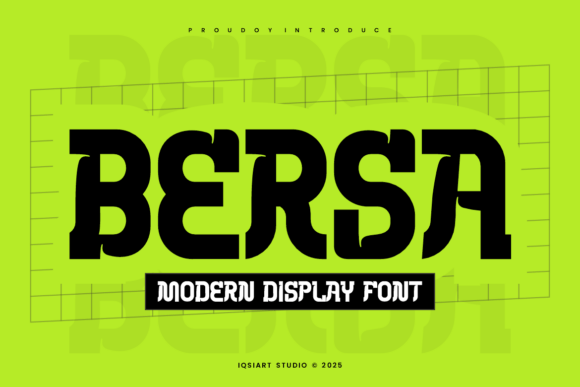
Bersa Font: A Unique and Quirky Display Font for Your Design Needs
The world of typography is vast and diverse, with countless fonts to choose from, each with its own unique character and personality. One such font that has gained popularity in recent times is the Bersa font. In this article, we’ll take a closer look at what makes Bersa a standout display font, its features, and how it can be used in various design contexts.
What is Bersa Font?
Bersa is a display font that can be described as unique, quirky, and interesting. Its distinctive design makes it stand out from more traditional fonts, and its versatility allows it to be used in a wide range of applications. Whether you’re looking to add some personality to your website, create eye-catching headlines, or simply want to experiment with a new font, Bersa is definitely worth considering.
Key Features of Bersa Font
- Unique and quirky design: Bersa’s design is unlike any other font out there. Its quirky and interesting features make it perfect for adding some personality to your designs.
- Display font: Bersa is specifically designed as a display font, making it ideal for headlines, titles, and other large-format text.
- Versatile: Despite its unique design, Bersa is incredibly versatile and can be used in a wide range of contexts, from digital designs to print materials.
What Makes Bersa Font So Special?
So, what sets Bersa apart from other fonts? For starters, its quirky design makes it instantly recognizable. The font features a range of unique characteristics, including irregular shapes and sizes, which give it a playful and informal feel. This makes Bersa perfect for designs that require a bit of personality and whimsy.
Another factor that contributes to Bersa’s uniqueness is its versatility. Despite its quirky design, the font is incredibly adaptable and can be used in a wide range of contexts. Whether you’re designing a website, creating a logo, or working on a print project, Bersa is a great choice.
Using Bersa Font in Different Design Contexts
- Web Design: Bersa is a great choice for web designers looking to add some personality to their website. Use it for headlines, titles, and other large-format text to create a lasting impression on your visitors.
- Print Design: Bersa is also suitable for print materials, such as brochures, posters, and business cards. Its unique design makes it perfect for adding some visual interest to your print materials.
- Logo Design: If you’re looking to create a logo that stands out from the crowd, Bersa is a great choice. Its quirky design makes it perfect for creating a unique and memorable logo.
Tips for Using Bersa Font Effectively
While Bersa is a versatile font, there are some tips to keep in mind when using it in your designs:
- Use it sparingly: Bersa is a display font, so it’s best to use it sparingly. Use it for headlines and titles, but stick to a more traditional font for body text.
- Experiment with colors: Bersa looks great in a range of colors, so don’t be afraid to experiment. Try using different colors to add some visual interest to your designs.
- Pair it with other fonts: Bersa can be paired with other fonts to create a unique and interesting design. Try pairing it with a more traditional font to create a striking contrast.
In conclusion, Bersa font is a unique and interesting display font that’s perfect for designers looking to add some personality to their designs. Its quirky design and versatility make it suitable for a wide range of contexts, from web design to print materials. With its ability to add visual interest and create a lasting impression, Bersa is definitely worth considering for your next design project.
Final Thoughts
Bersa font is a great addition to any designer’s toolkit. Its unique design and versatility make it perfect for a wide range of applications. Whether you’re a seasoned designer or just starting out, Bersa is definitely worth checking out.